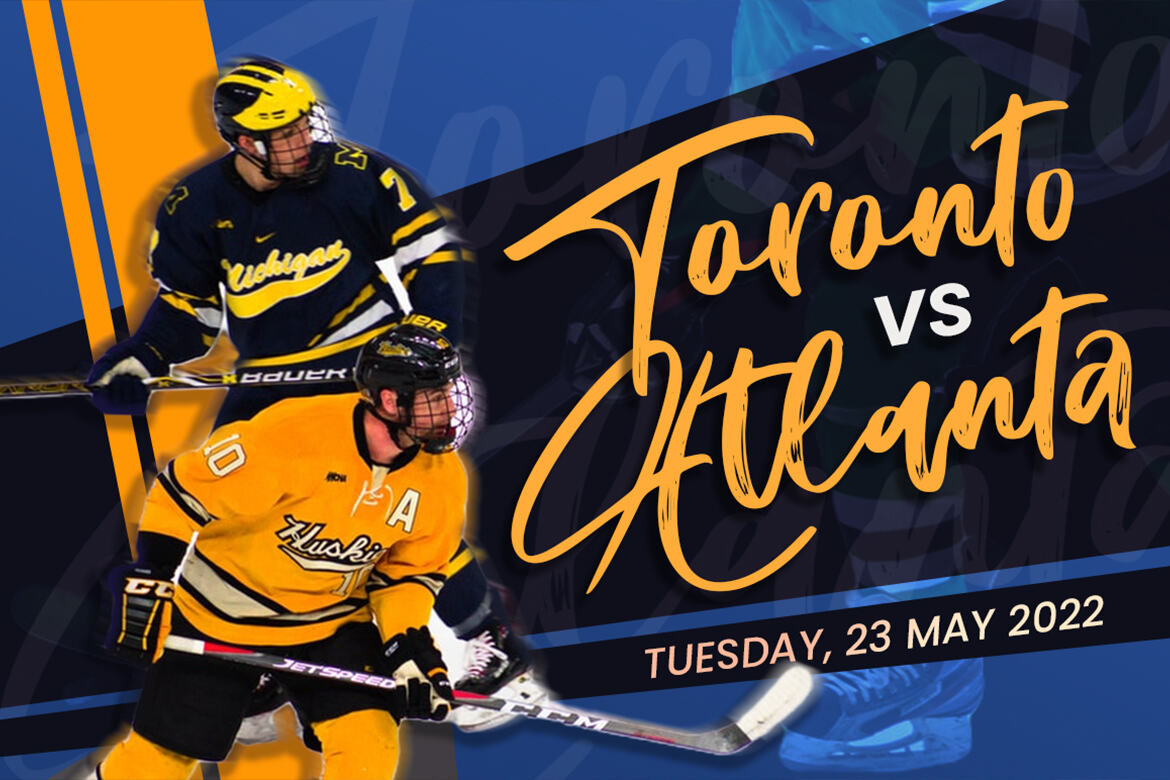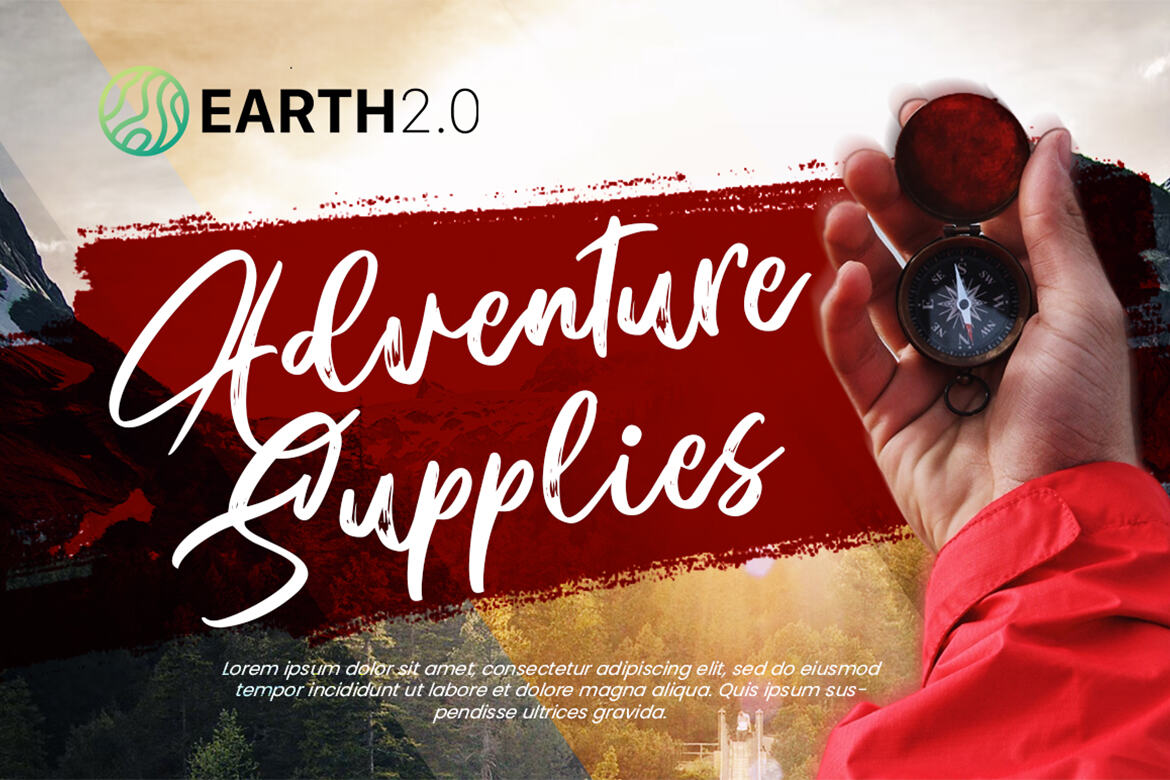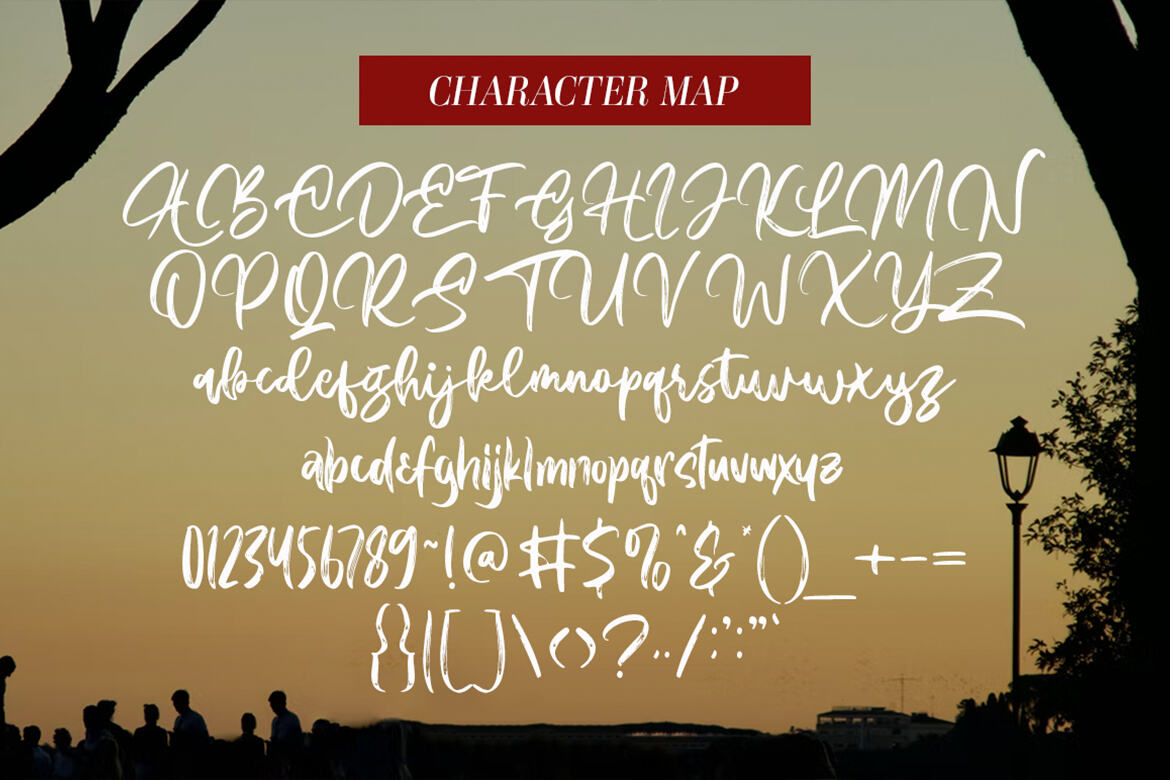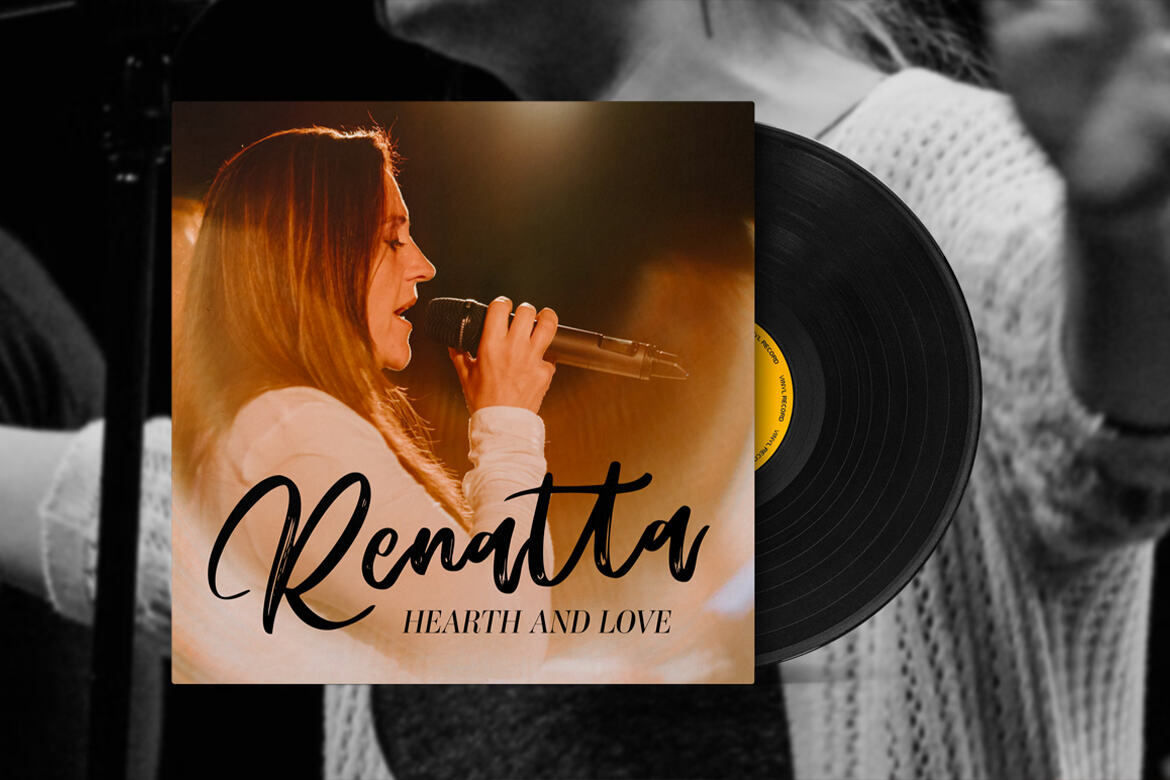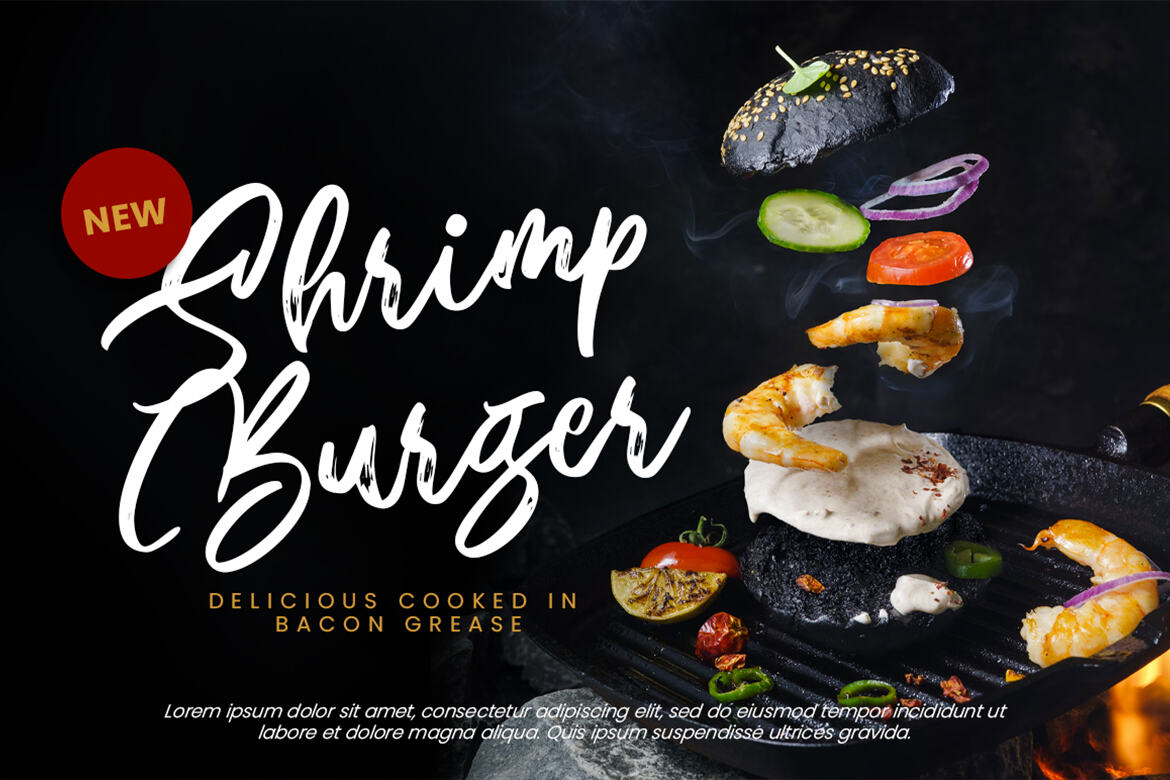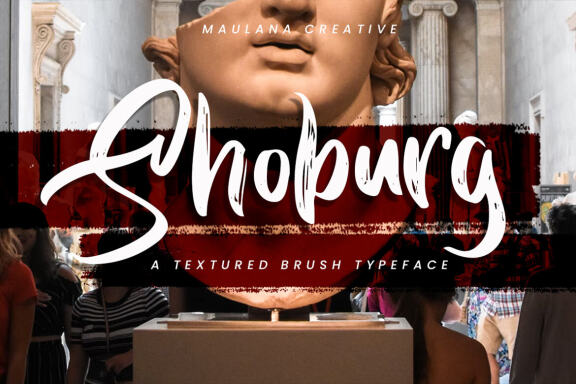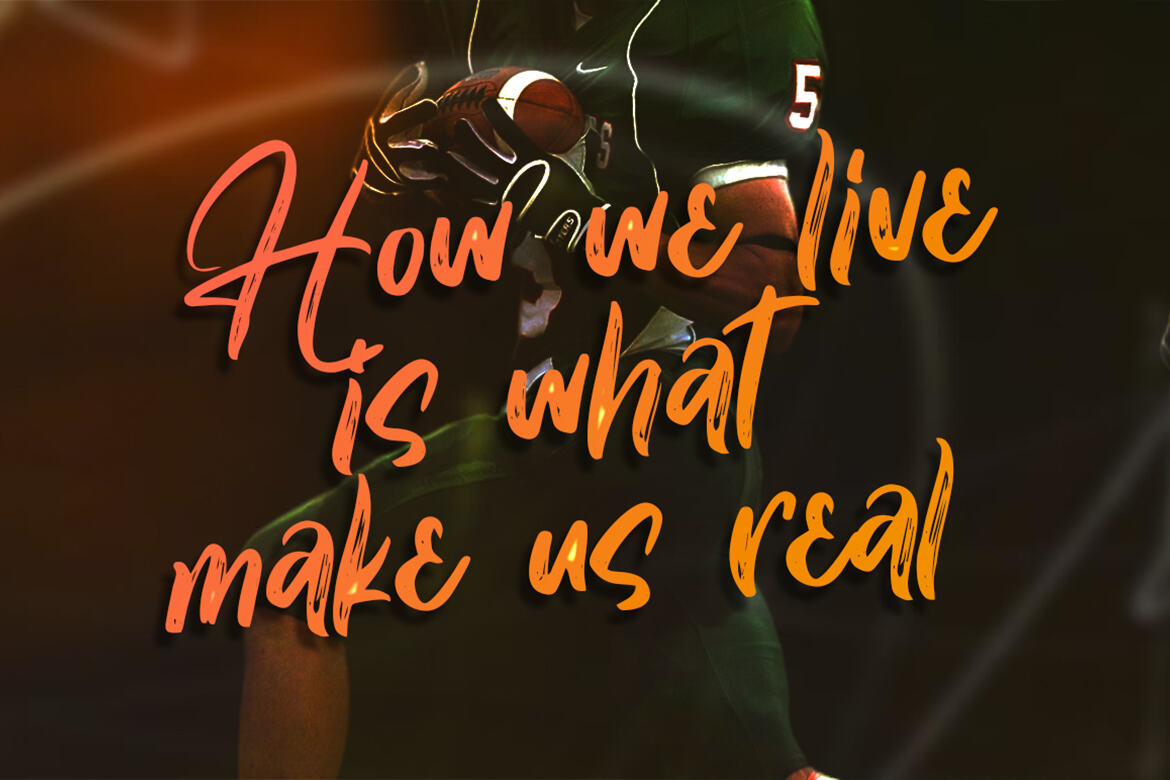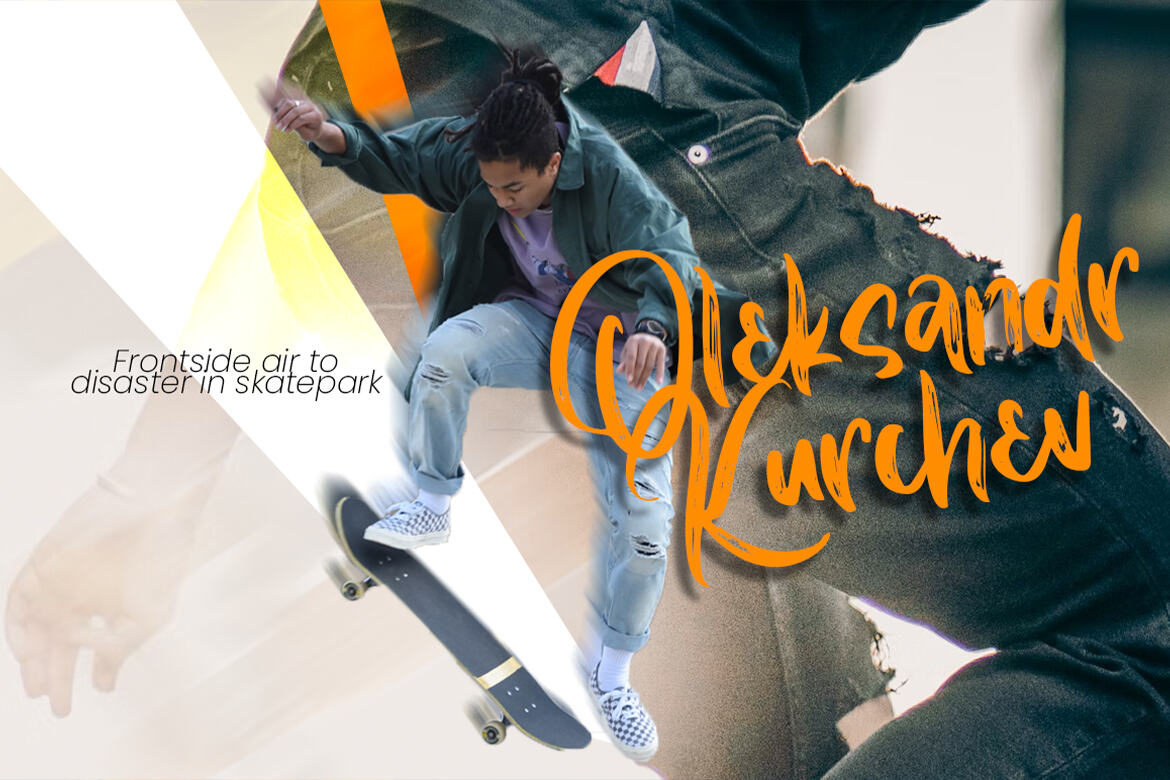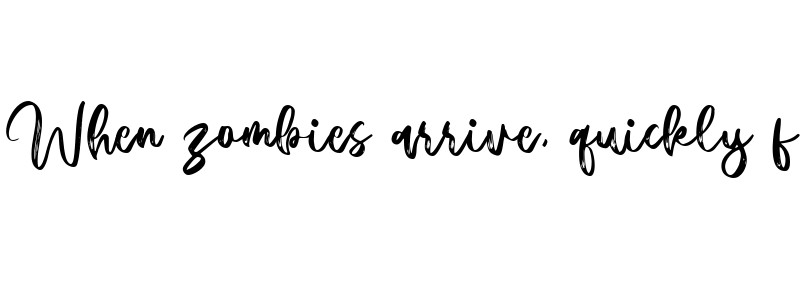
Shoburg Textured Brush FREE Font
Shoburg a roght script font. with a bit of ligatures and alternates. To give you an extra creative work. Crankstock font support multilingual more than 100+ language. This font is good for logo design, Social media, Movie Titles, Books Titles, a short text even a long text letter and good for your secondary text font with sans or serif. Make a stunning work with Shoburg font.